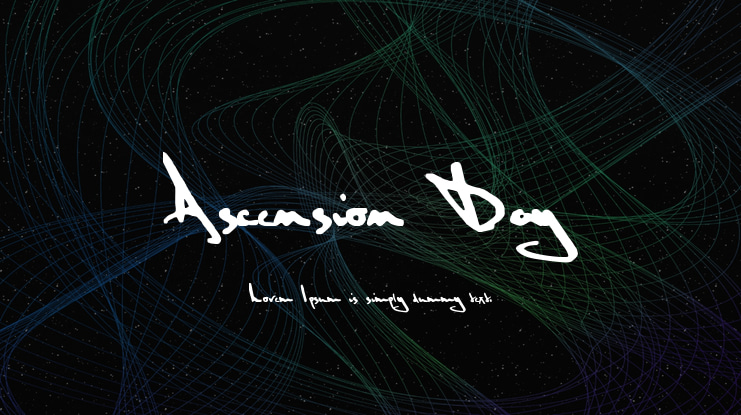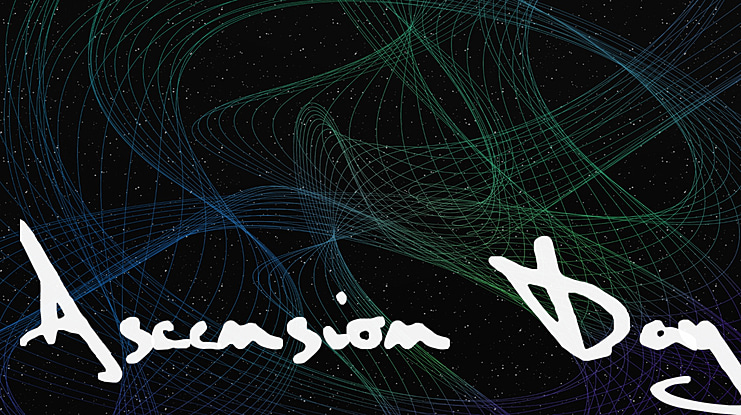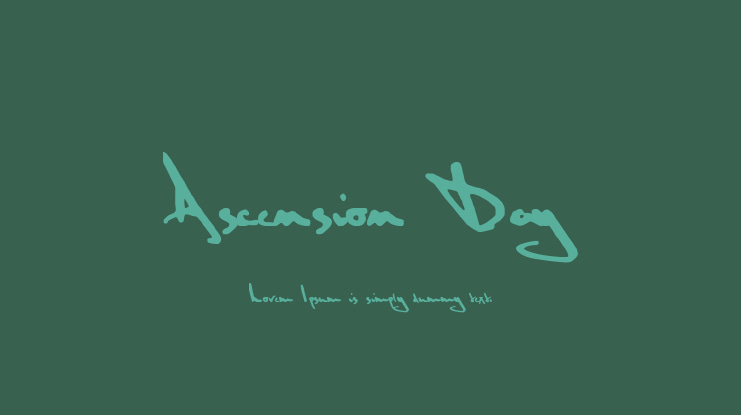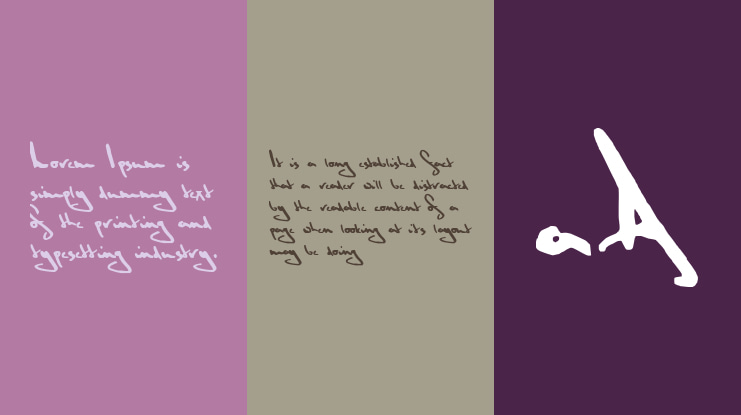
Ascension Day Font
Joseph M. Pence
Ascension Day is an intricate handwritten font based on the liner notes of the Talk Talk album "Laughing Stock." It includes full kerning (in applications that support it), uppercase and lowercase letters, and some punctuation.